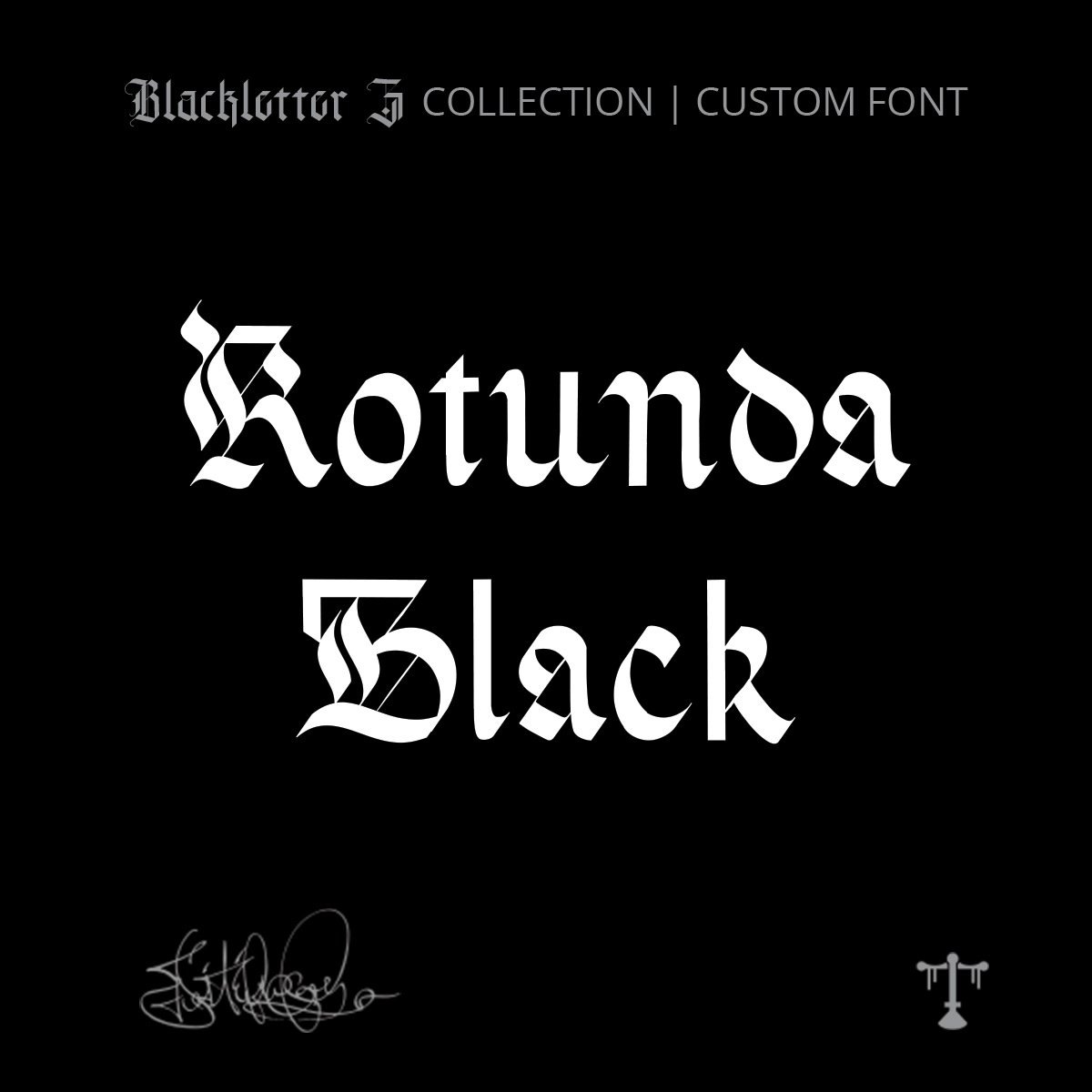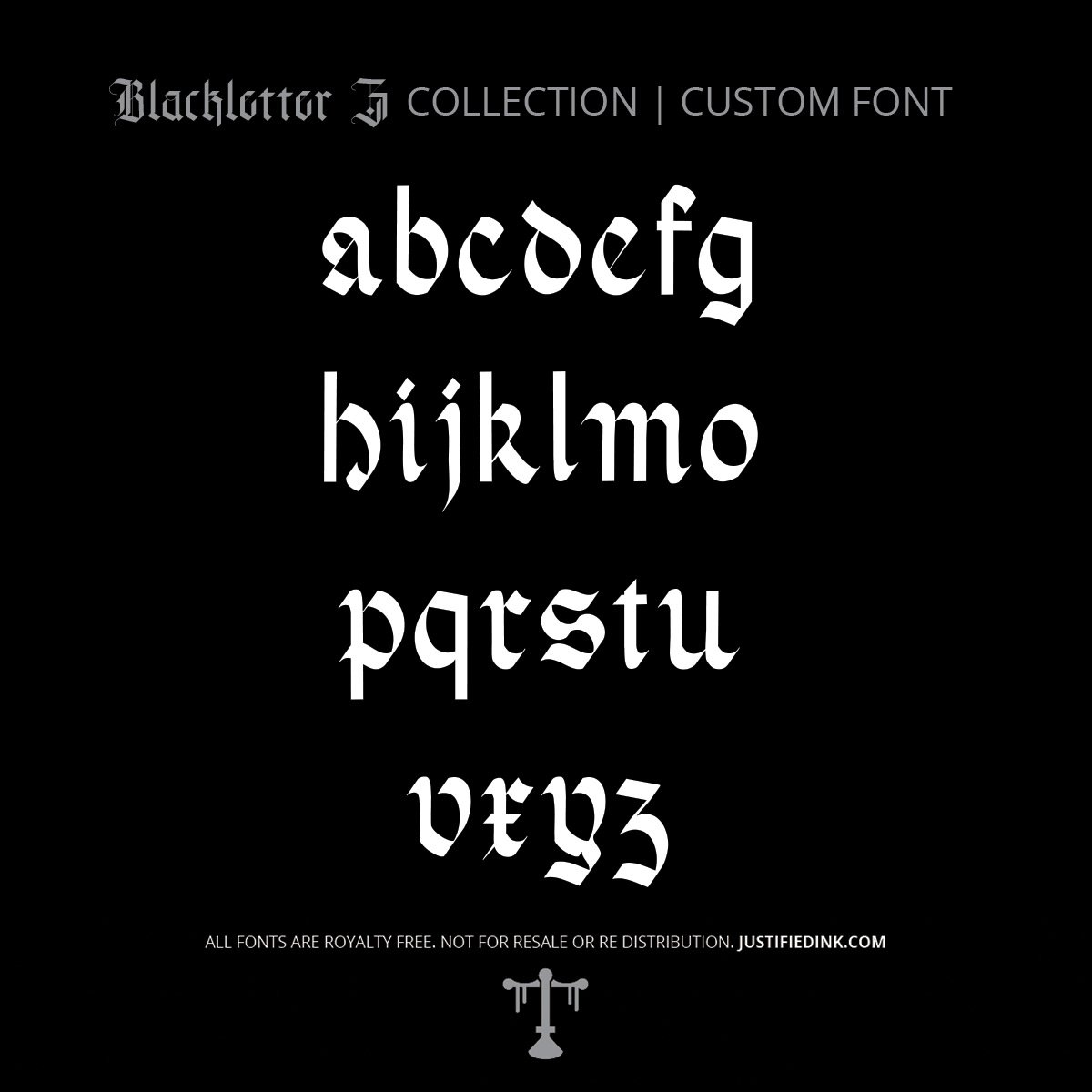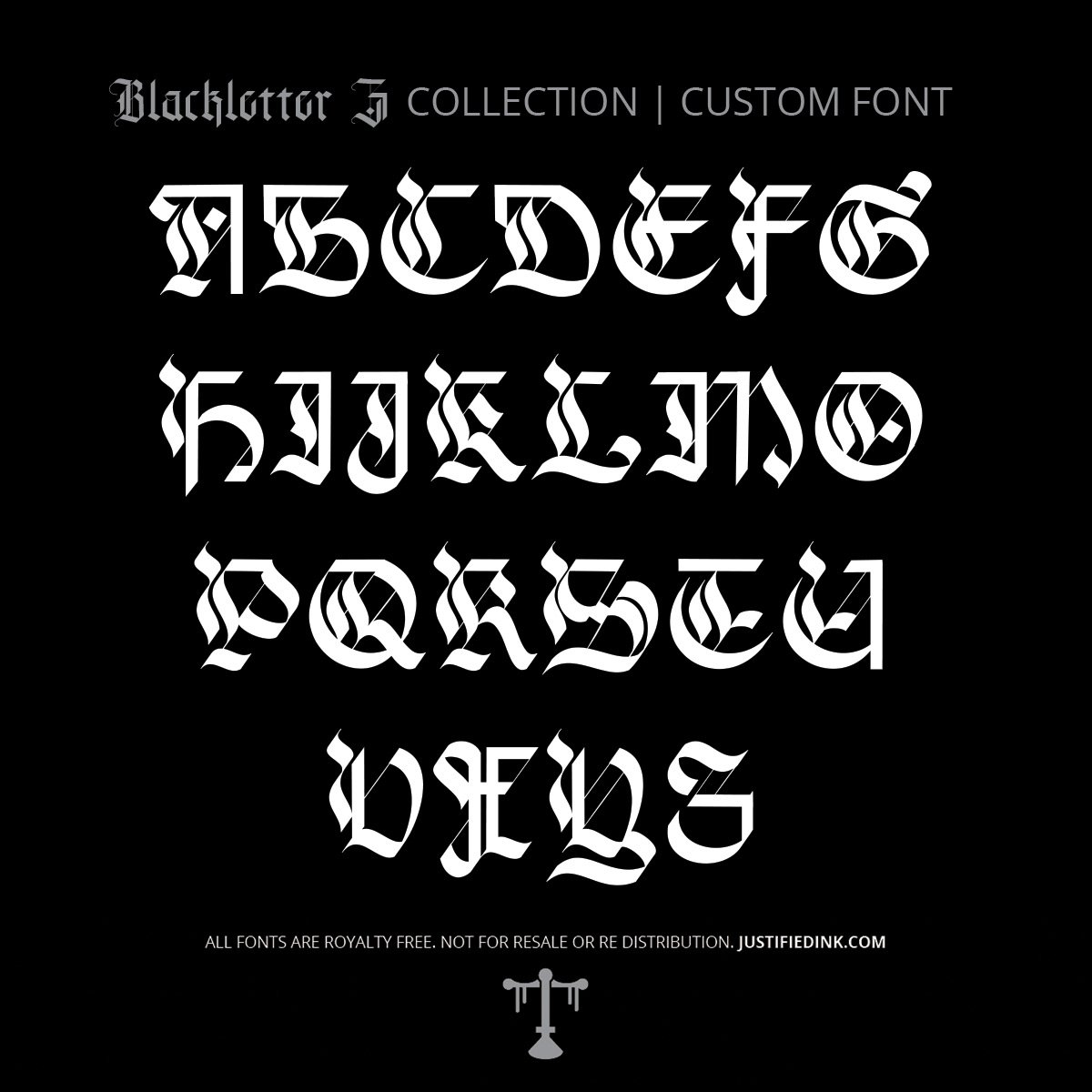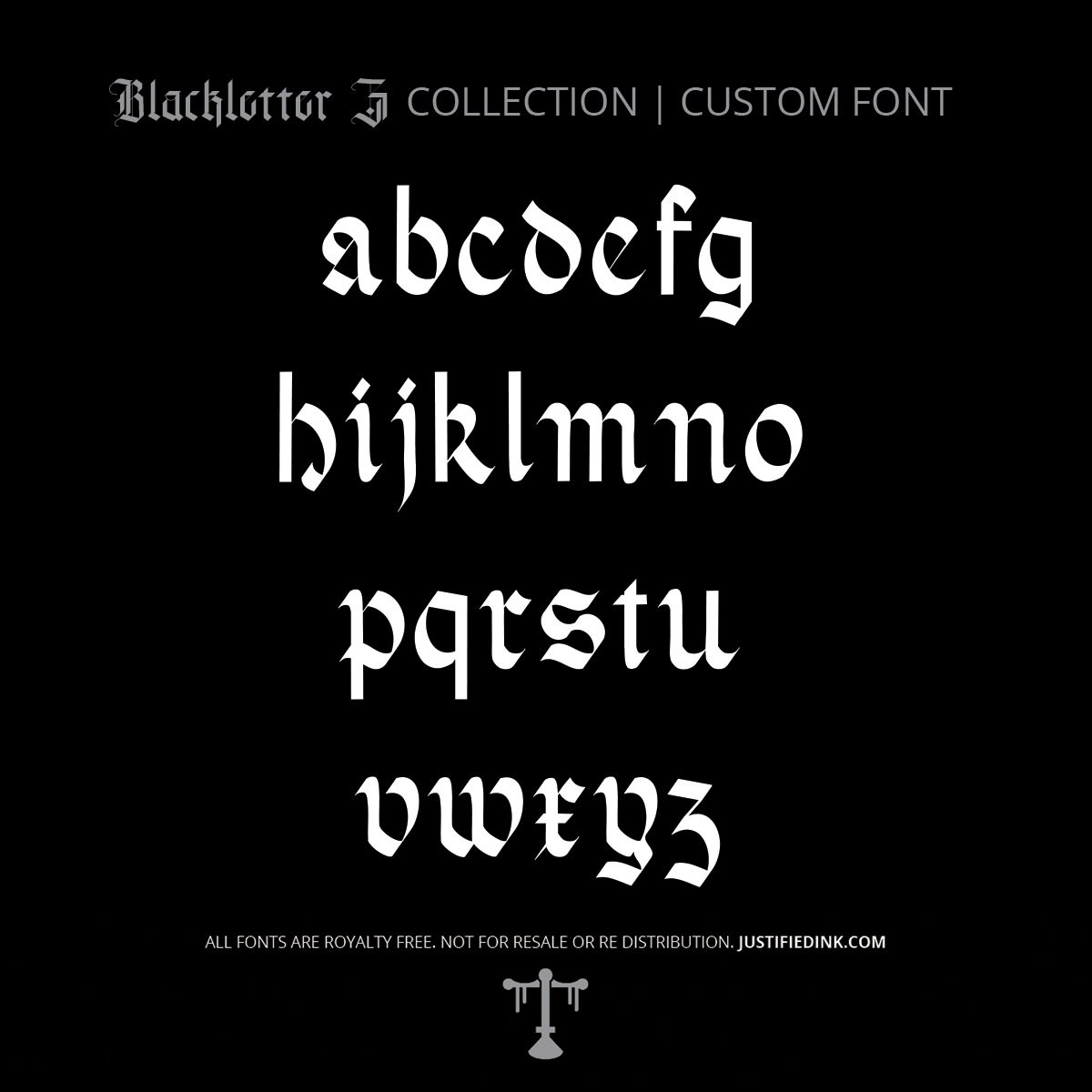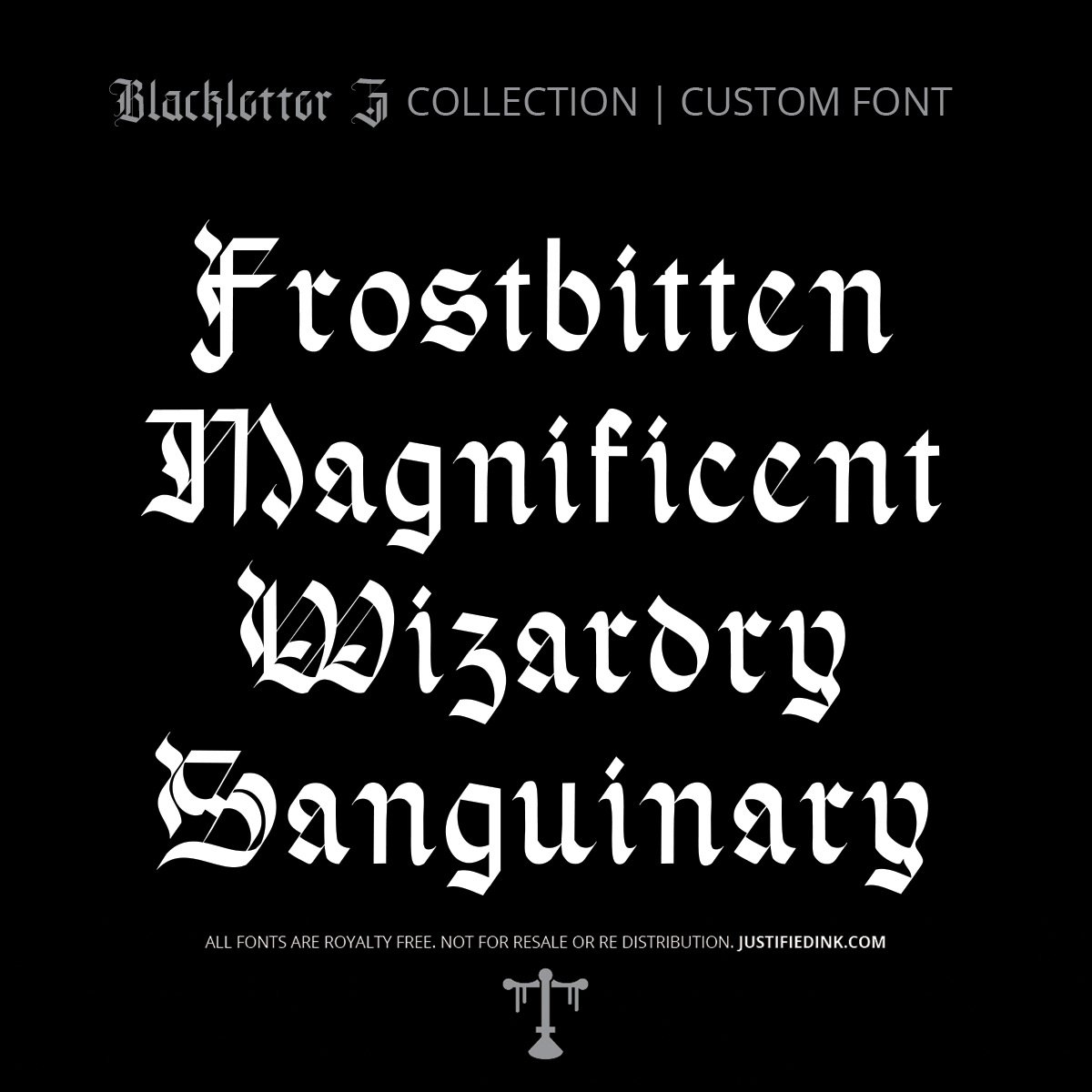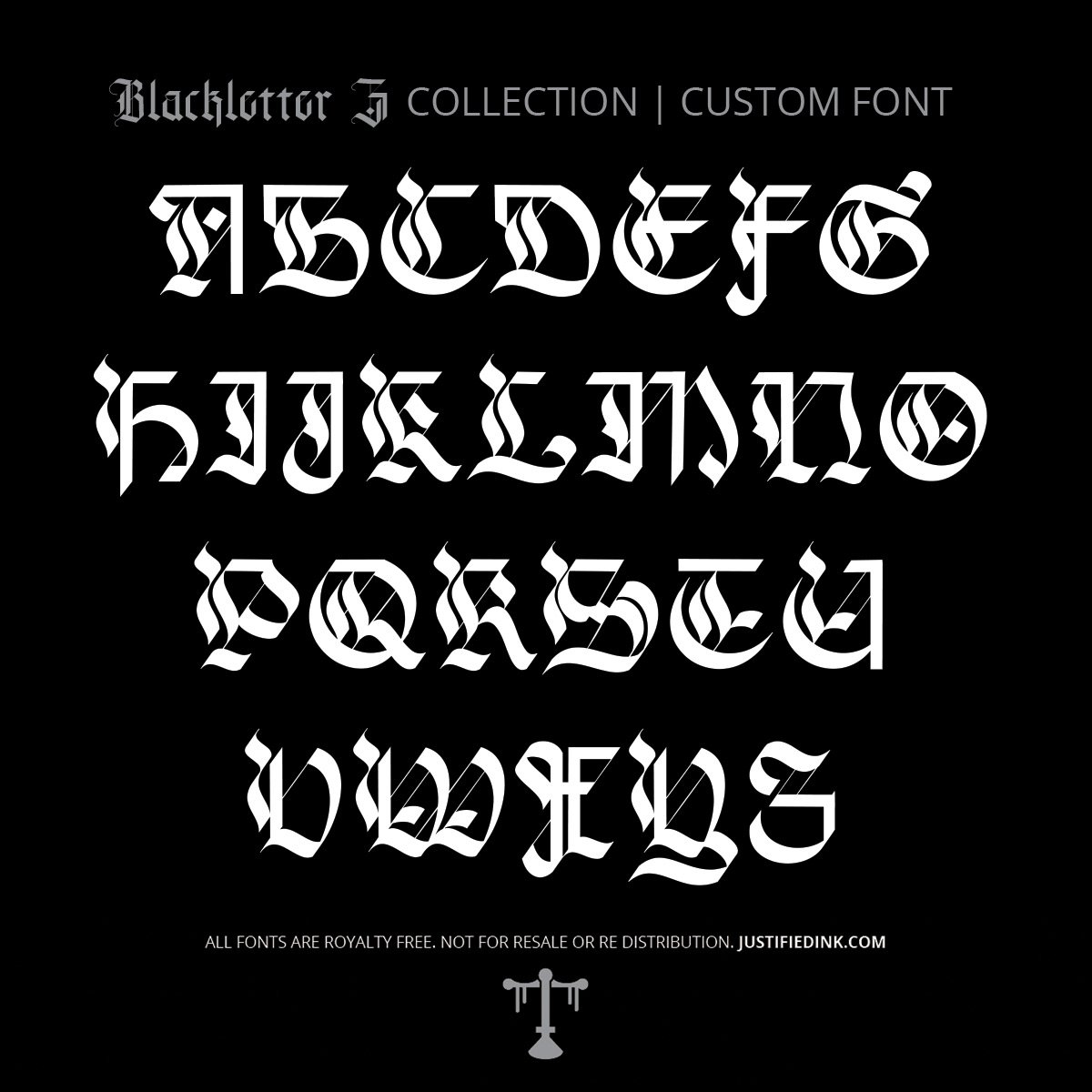
Rotunda Black (1 style) - Custom Font
Heavy Curves, Medieval Weight
Rotunda Black expands the classic rotunda style into a darker, heavier gothic font. Rounded shapes are pushed to their boldest extreme, creating a script both imposing and beautiful. Excellent for gothic tattoo fonts, posters, or branding that needs round strength with a blackletter foundation.
Blackletter Z is the newest addition to Justified Ink’s Atmospheric Blackletter Collection. This release builds on Blackletter II and III with over 40 new gothic fonts—including uppercase, lowercase, and full punctuation.
Inside you’ll find classic gothic lettering styles such as Fraktur, Gotica, Bastarda, Rotunda, and Textura, alongside modern graffiti and experimental gothic scripts. Designed for artists, designers, and typographers, Blackletter Z offers a versatile library of gothic letters, fonts, and scripts to elevate any project.